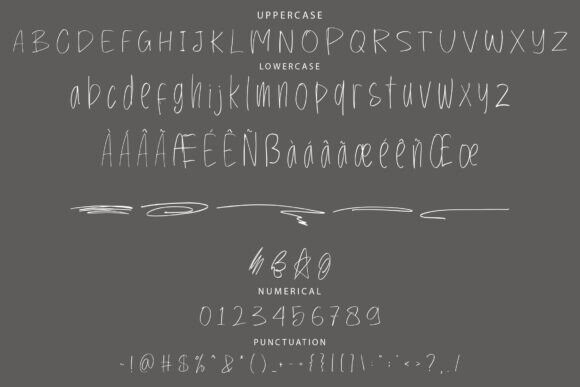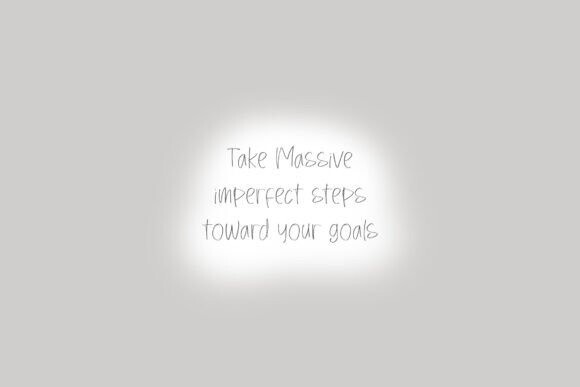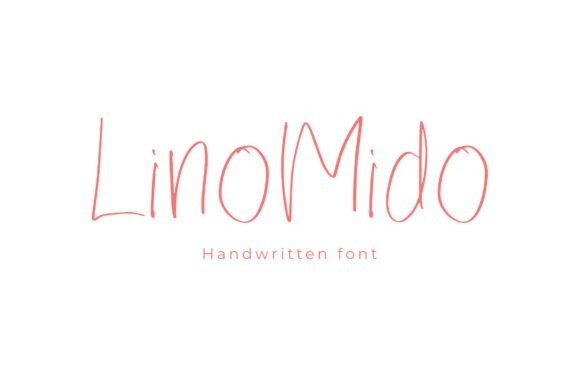
Lino Mido Font
Lino Mido Font is a thin, handwritten font that looks casual and personal. Its delicate letters give a friendly and warm feel, making it great for notes, invitations, or anything that needs a human touch.